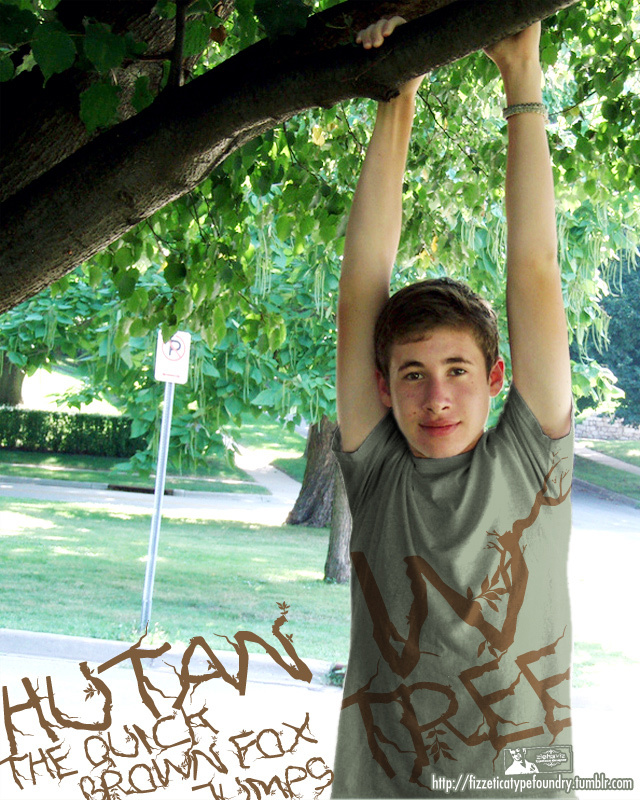
FTF Hutan Akarasiana by Abdul Hafiz Hilman of Fizzetica Type Foundry DepokAsiana is a free botanical decorative display font. Its jagged letters resemble tangled branches and exposed roots, with thin shoots breaking from the main strokes. Small leaves and thorny offshoots turn the alphabet into continuous woodland imagery.
Packaging is its strongest medium. The organic silhouettes suit herbal products, nature-themed posters, fantasy game graphics, and outdoor event merchandise, where the lettering can become part of a brand's illustrated forest identity.